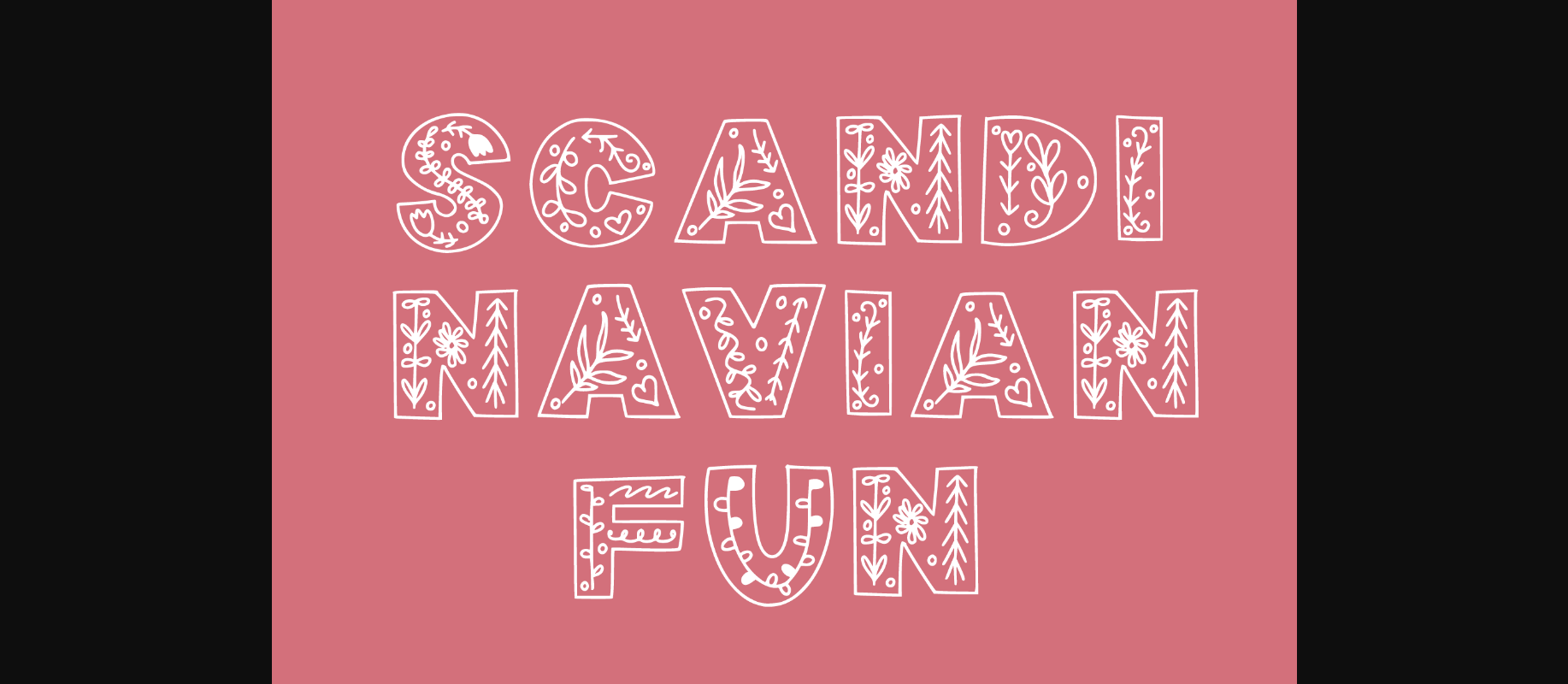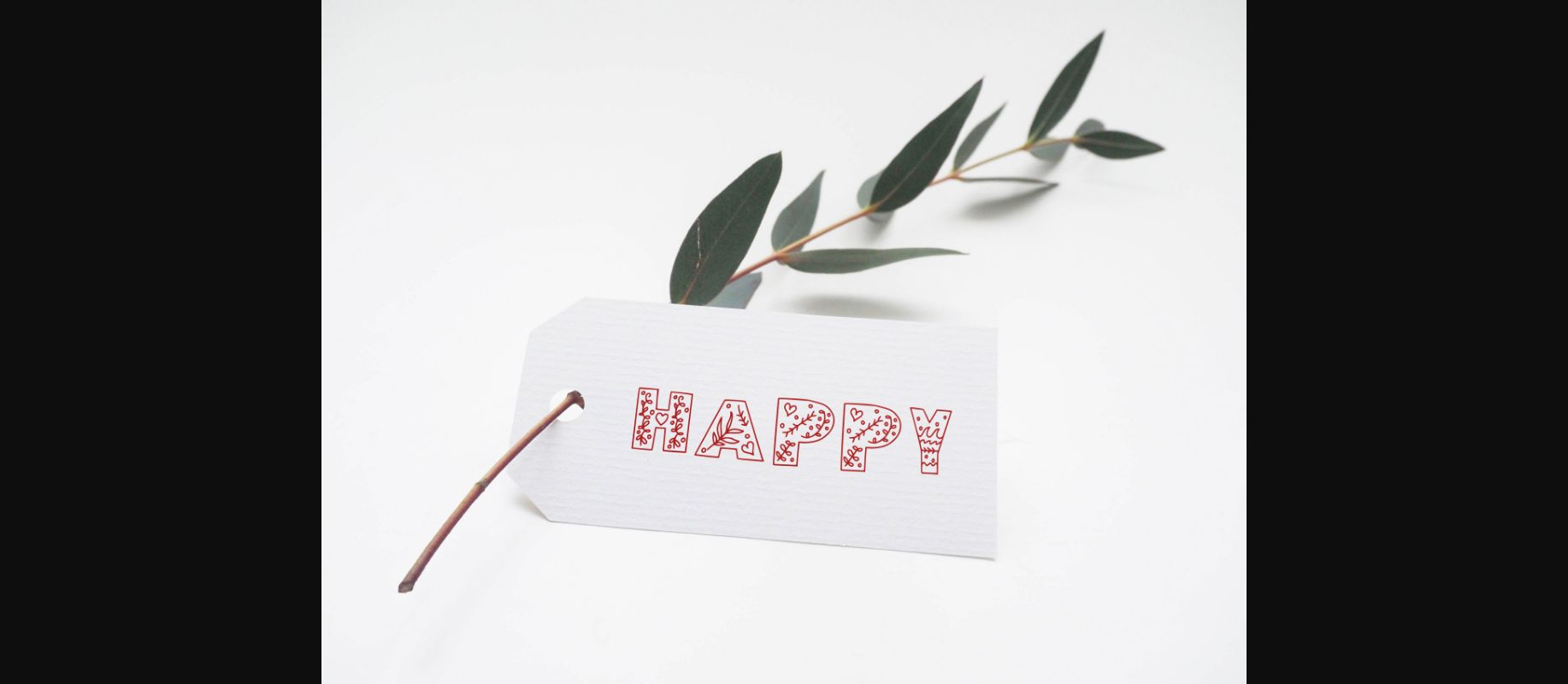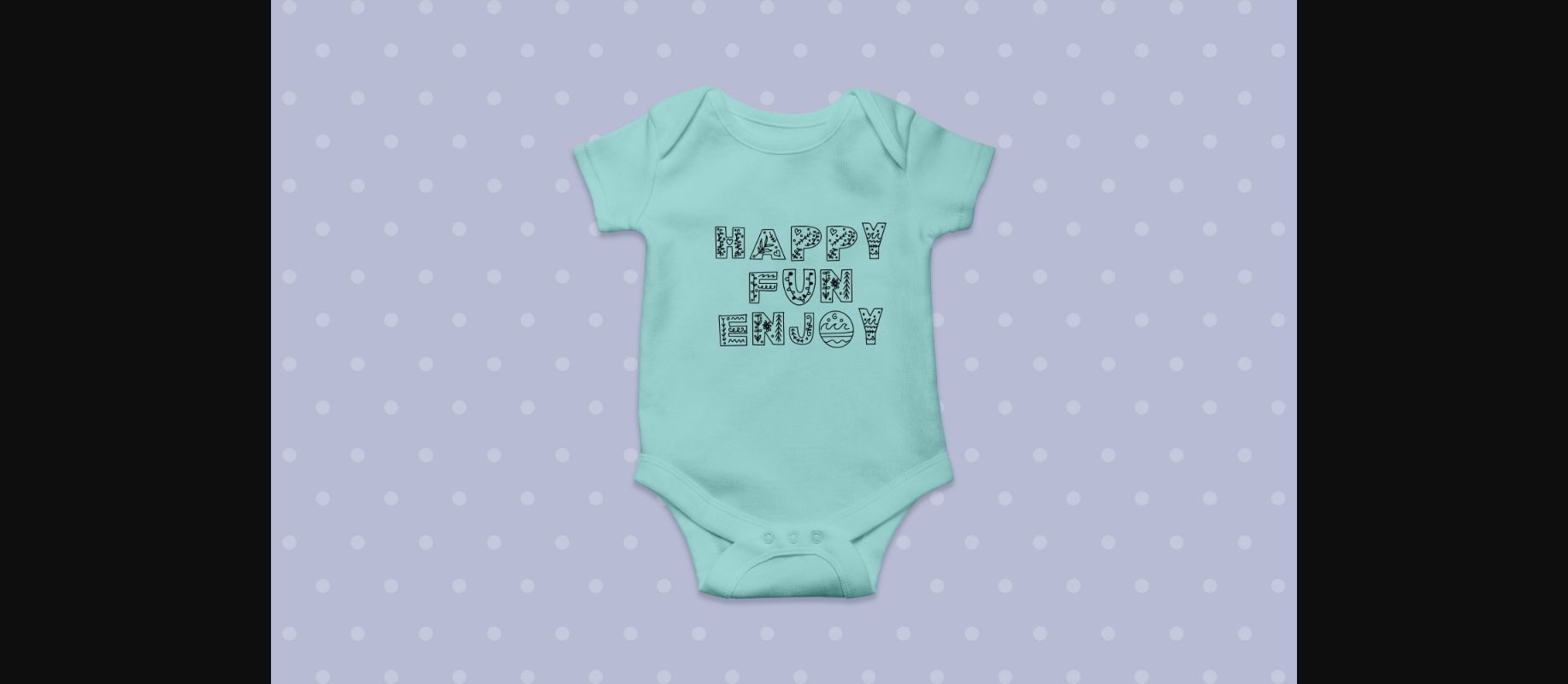
Scandinavian Fun Font
About Scandinavian Fun Font
Scandinavian Fun is a cute and simple lettered decorative font that can be used for all chalkboard quotes or teaching material! Its authentic look will add a personal and realistic feel to your designs.